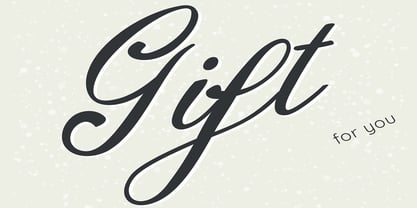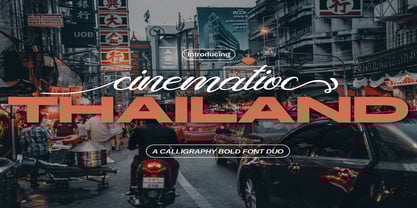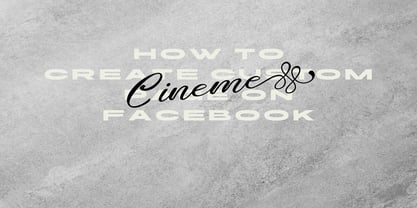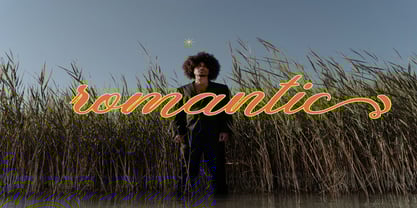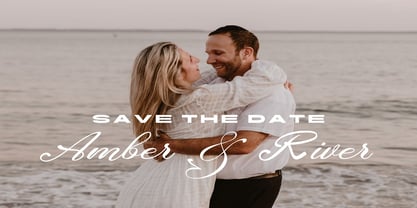
Cinematioc Thailand
by Dream Font
The Cinematioc Thailand Font Family was designed by Mark Jamra and published by Dream Font. Cinematioc Thailand contains 2 styles and family package options. More about this family
Cinematioc Thailand ,a beautiful handwritten romantic wedding font duo featuring a textured script paired with a luxurious serif typeface. This elegant combination brings sophistication and charm to your designs, perfect for creating timeless, stylish visuals.
The script font offers a subtle, hand-lettered texture, resembling the look of authentic modern calligraphy. Paired with the refined serif, it creates a balanced and polished appearance that complements the script beautifully.
Cinematioc Thailand is the ideal choice for wedding invitations, save-the-date cards, feminine branding, stylish logos, and sophisticated stationery. Its classic yet modern appeal makes it a must-have addition to your font collection.